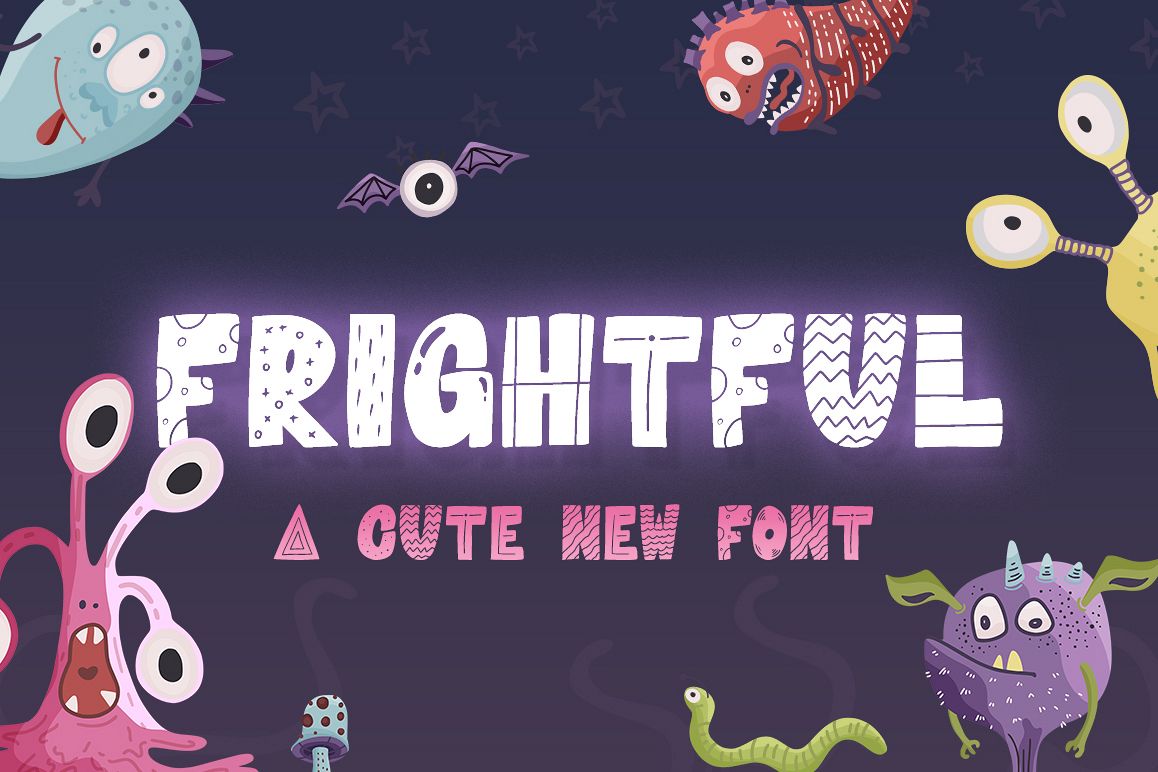
Frightful is not a scary new font, but rather a cute and funky new typeface that we can’t get enough of! Look how fun the characters are and how your brain is already thinking of 1000 things to design using this wonderful download. Grab it now, you won’t regret it!